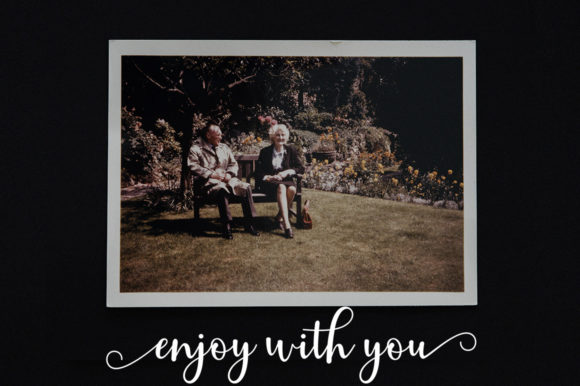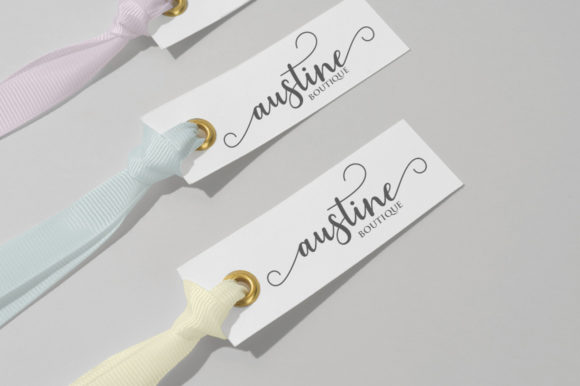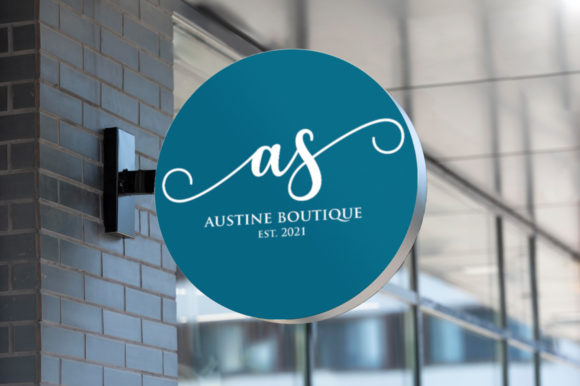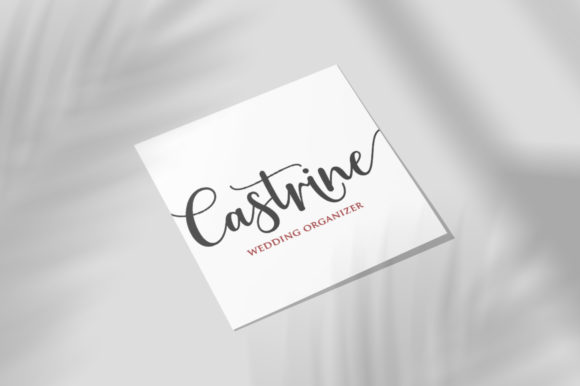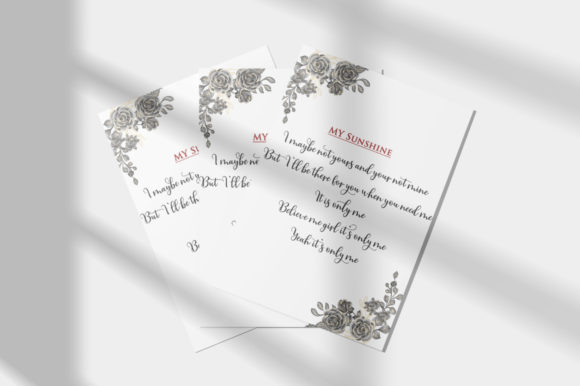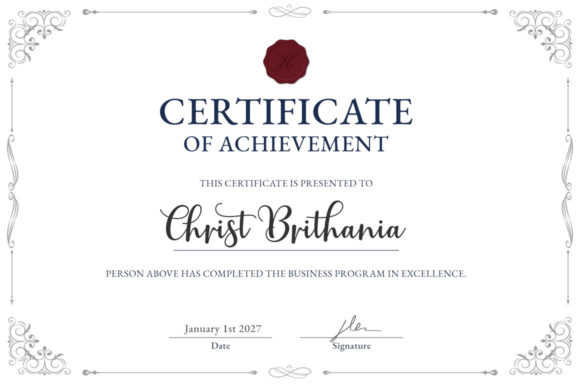
Unleashing Creativity with the Perfect Font
Have you ever been stuck on a design project, searching for that perfect font to bring your vision to life? You’re not alone. We’ve all been there, scrolling through font libraries, trying to find the one that says ‘this is me.’
That’s where the Brithney Castile Font comes in – a modern calligraphy design that’s as beautiful as it is versatile. With its casual, swashy feel, this font is perfect for everything from logos and product packaging to wedding invitations and book covers. Whether you’re a seasoned designer or just starting out, the Brithney Castile Font is a valuable addition to your toolkit.
Brittney Castile Font Key Features
- Font Family: Brittney Castile Font
- Unique Characteristics: This script font features elegant, cursive lines, making it perfect for wedding invitations, quotes, and other creative projects
- Font Style: Script, Calligraphy
Brithney Castile Font Review
Overall, I have mixed feelings about the Brithney Castile Font. While it has its strengths, it also has some notable limitations. Let’s dive in!
- Casual feel: Brithney Castile Font has a relaxed, approachable vibe that works well for informal projects.
- Easy to read: The font is clear and legible, making it suitable for body text or smaller headings.
- Customizable: The font offers a range of styles and weights, allowing for some flexibility in design.
- Lack of sophistication: The font’s casual feel may not be suitable for more formal or professional projects.
- Not ideal for headings: While the font is easy to read, it may not be the best choice for larger headings or titles.
- May not stand out: Brithney Castile Font is a relatively generic font, which may make it harder to make a lasting impression.
Overall, I think Brithney Castile Font is a solid choice for casual projects, but it may not be the best fit for more formal or complex designs.
For a more elegant look, pair the font with a subtle background image or texture.
For a more dramatic effect, use the font in combination with bold shapes and vibrant colors.
For a more polished look, use the font in combination with clean layouts and minimal graphics.
The Britney Castile Font is ideal for:
1. Fashion and beauty branding.
2. Luxury product packaging.
3. High-end event invitations.
4. Editorial and publishing design.
Alternatives to Brithney Castile Font
Great Vibes is a beautiful, elegant script font. It’s perfect for creating a sense of luxury and sophistication. Use it for high-end branding, weddings, or special occasions.
Compared to Brithney Castile Font, Great Vibes has a more refined and polished look. It’s ideal for projects where you want to convey a sense of high-end quality.
Pacifico is a modern, stylish script font with a relaxed feel. It’s great for creating a casual, beachy vibe. Use it for travel, food, or lifestyle brands.
Pacifico is more laid-back and casual compared to Brithney Castile Font. It’s perfect for projects where you want to convey a sense of relaxation and ease.
Carolyna Pro is a elegant, modern script font with a touch of sophistication. It’s perfect for creating a sense of luxury and glamour. Use it for high-end branding, fashion, or beauty brands.
Carolyna Pro has a more refined and elegant look compared to Brithney Castile Font. It’s ideal for projects where you want to convey a sense of high-end quality and sophistication.
Dancing Script is a fun, playful script font with a touch of whimsy. It’s great for creating a sense of energy and excitement. Use it for entertainment, sports, or youth brands.
Dancing Script is more playful and energetic compared to Brithney Castile Font. It’s perfect for projects where you want to convey a sense of fun and excitement.
3 Creative Project Ideas using Brithney Castile Font
Design a romantic wedding invitation that captures the essence of a whimsical fairytale. The Brithney Castile Font adds a touch of elegance and sophistication.
How to use Brithney Castile Font: Use the font for the main heading and subheading of the invitation. Pair it with a matching font for the body text to create a harmonious balance.